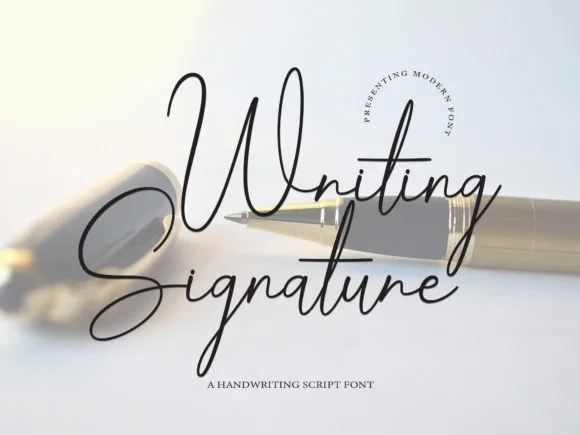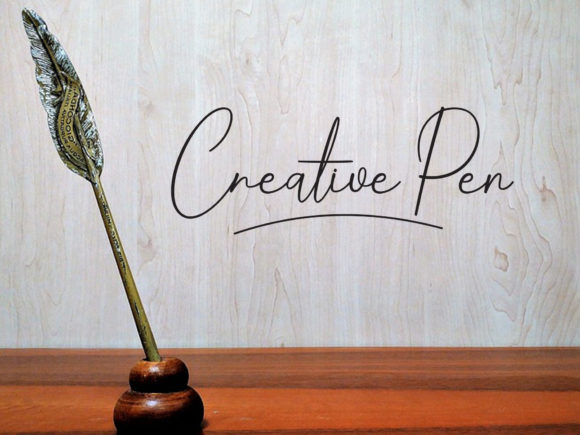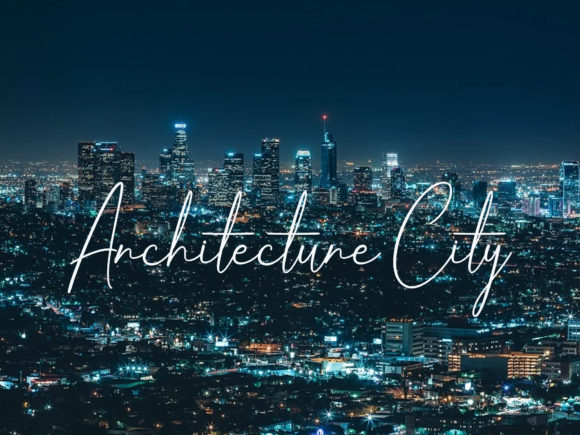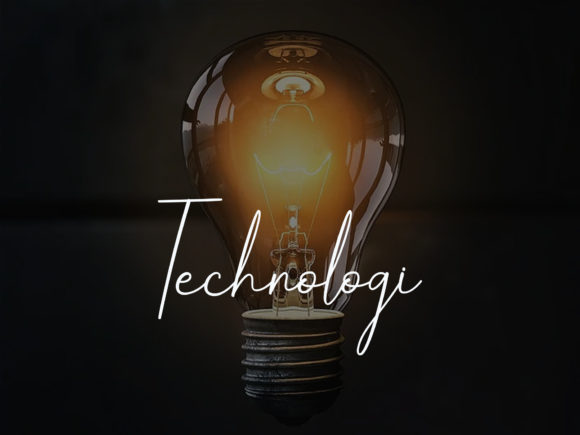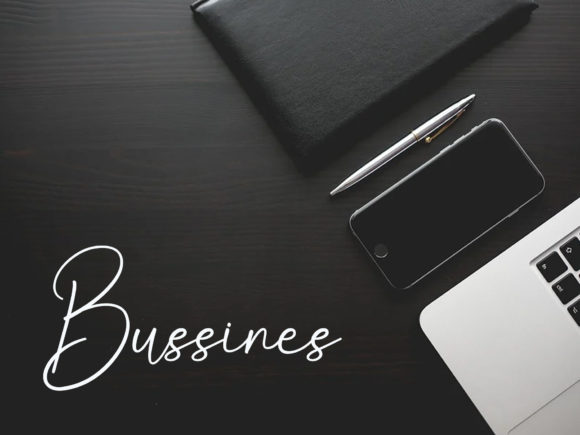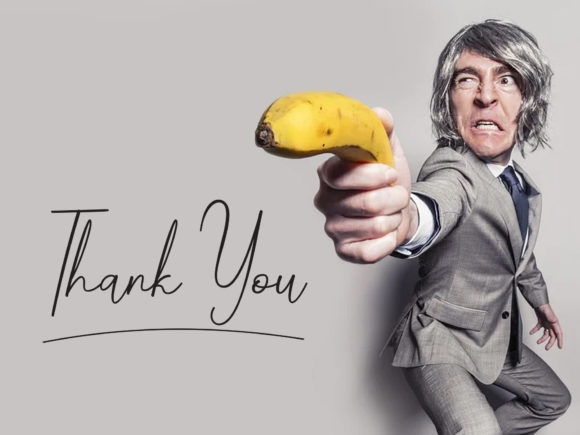
Writing Signature Font
About Writing Signature Font
Writing Signature is a sophisticated and meticulously designed handwritten font that exudes elegance and uniqueness. Each stroke and curve of this font has been carefully considered to create a stylish and personalized look, making it an excellent choice for a wide range of design projects.
With its distinct and refined appearance, Writing Signature is perfect for creating cool and eye-catching designs. Its handwritten style adds a personal touch to any text, allowing you to convey messages in a way that feels genuine and authentic. Whether you’re working on formal invitations, heartfelt letters, branding materials, or even food product labels, this font can elevate your designs and make them stand out.
The intricate details and subtle variations in Writing Signature’s characters contribute to its cool and stylish aesthetic. Its flowing and fluid lines capture the essence of a handcrafted signature, giving your text a touch of sophistication and uniqueness.
The versatility of Writing Signature extends to various contexts, whether digital or print. Its ability to adapt to different design mediums ensures that it can seamlessly integrate into a variety of projects, adding a personalized and creative flair to each one.
When using Writing Signature, you have a font that not only produces visually appealing designs but also evokes a sense of class and individuality. Its careful craftsmanship makes it suitable for conveying both formal and heartfelt messages, making it a valuable asset in your design toolkit.